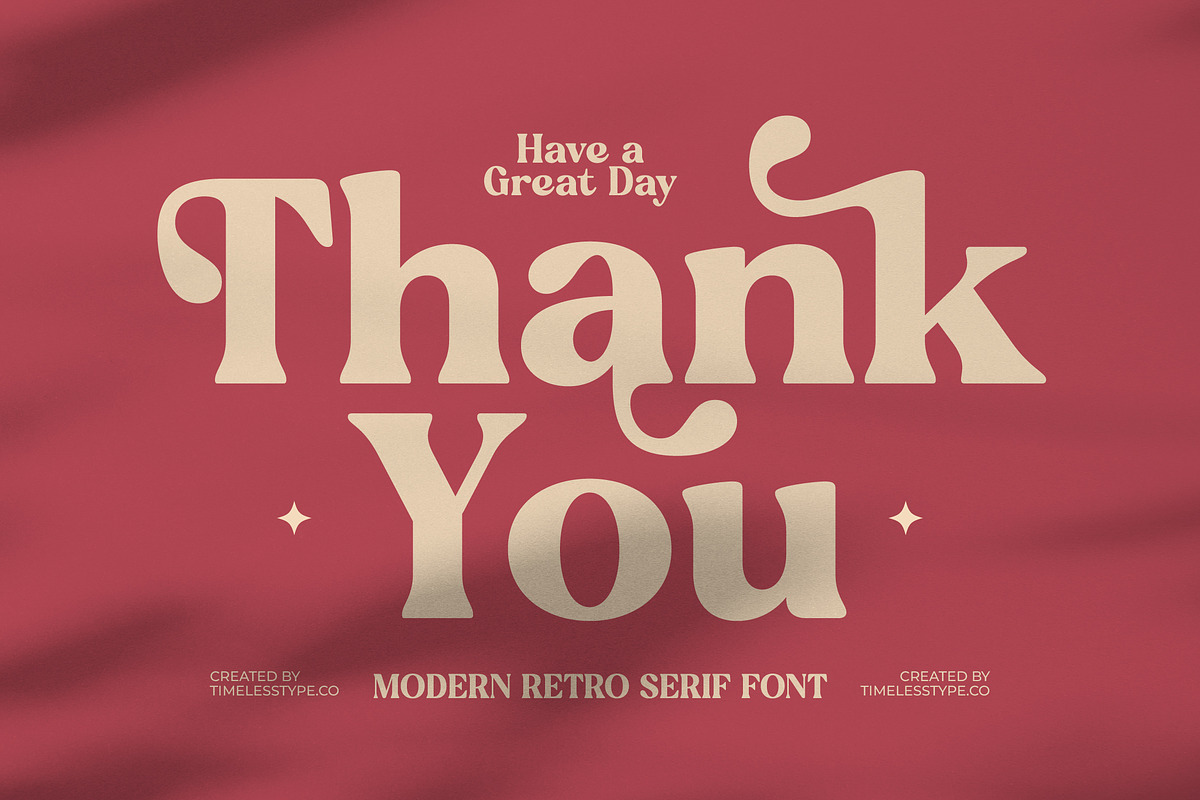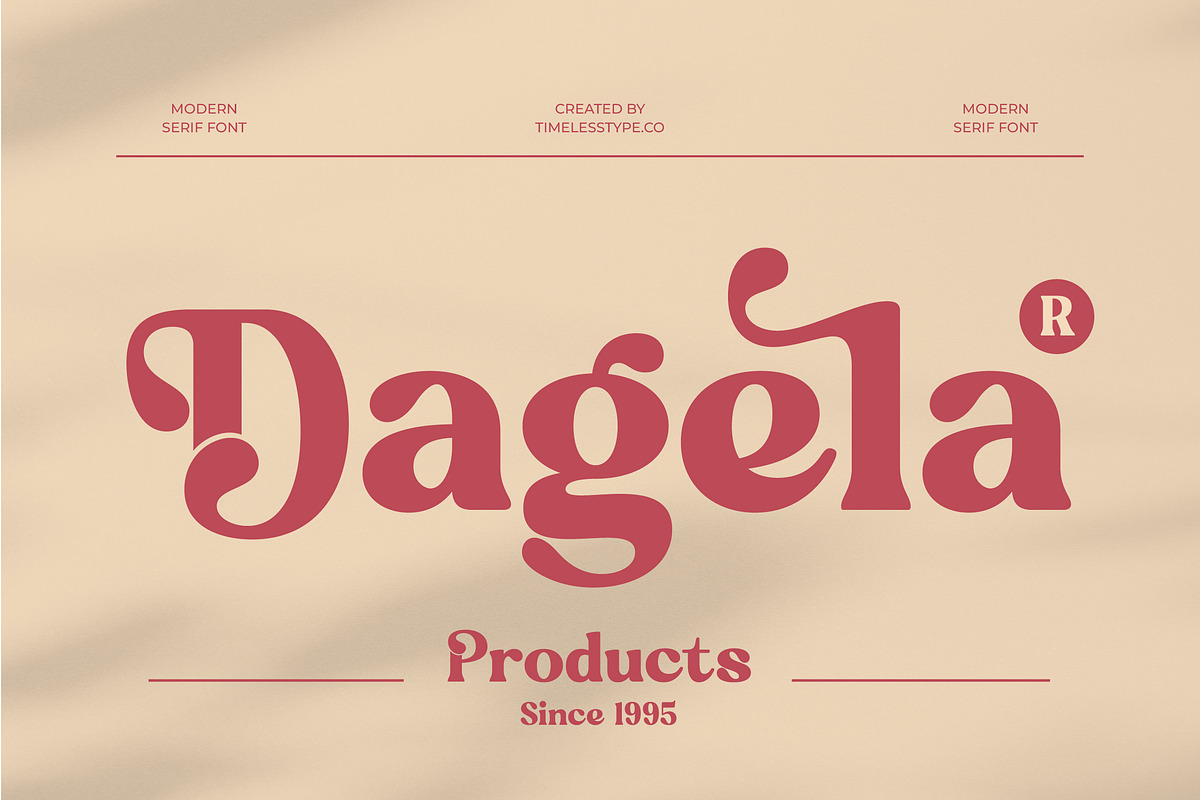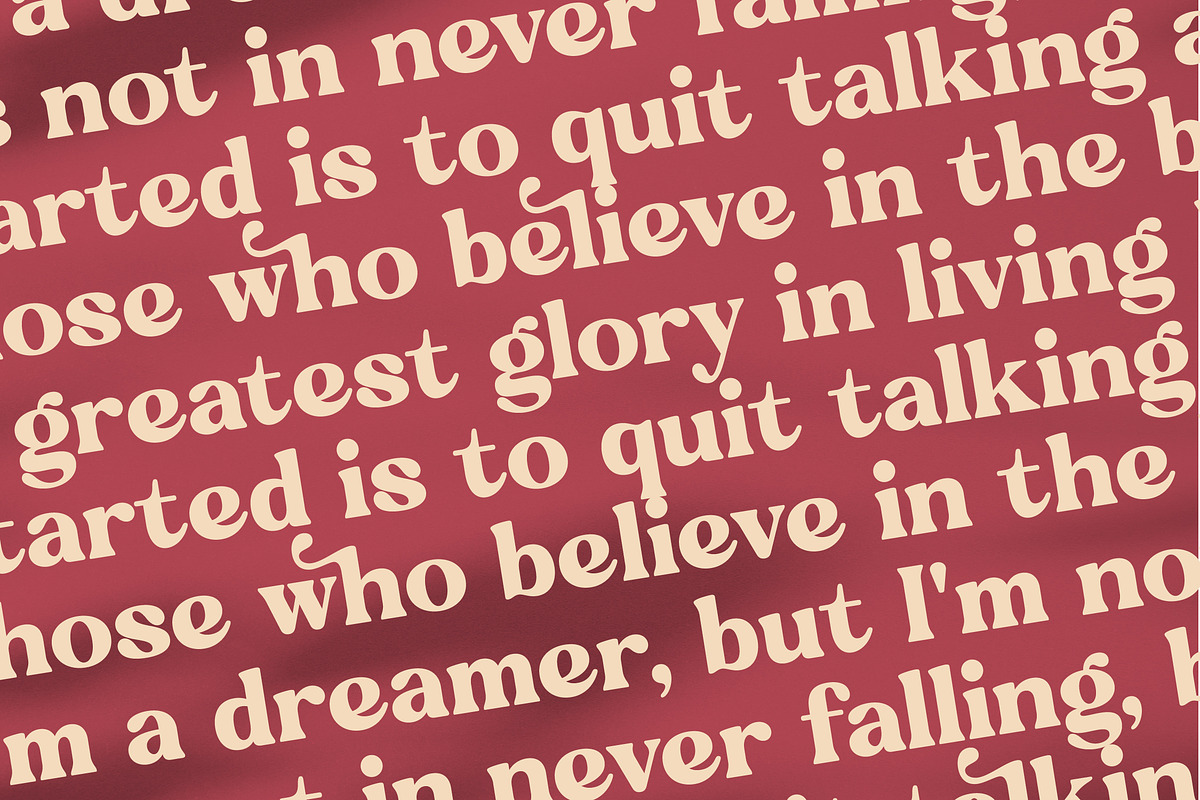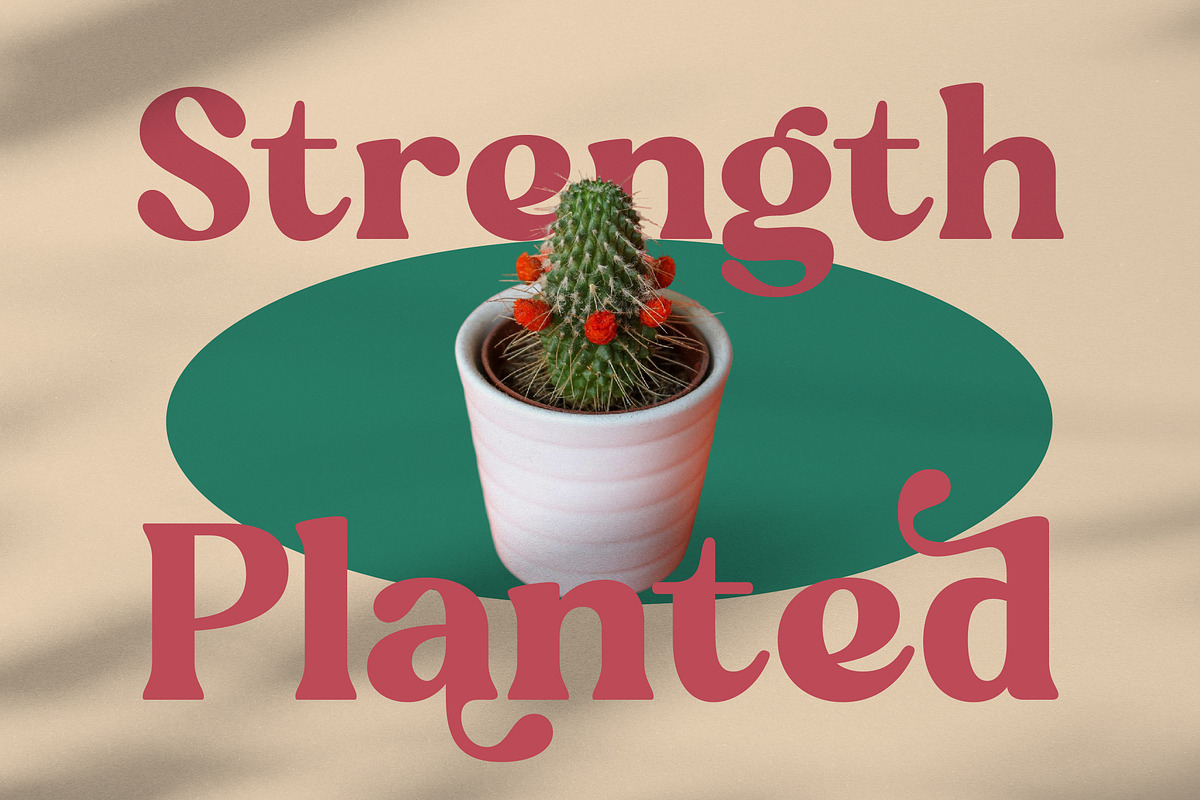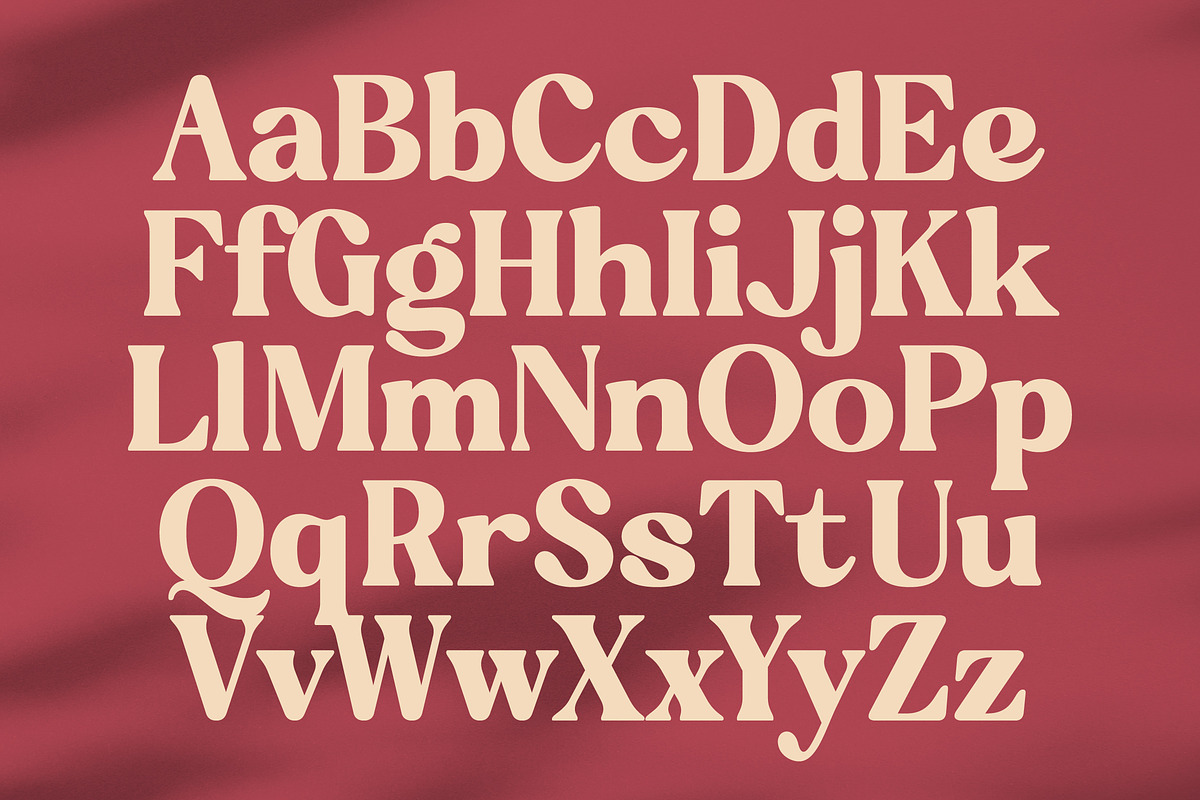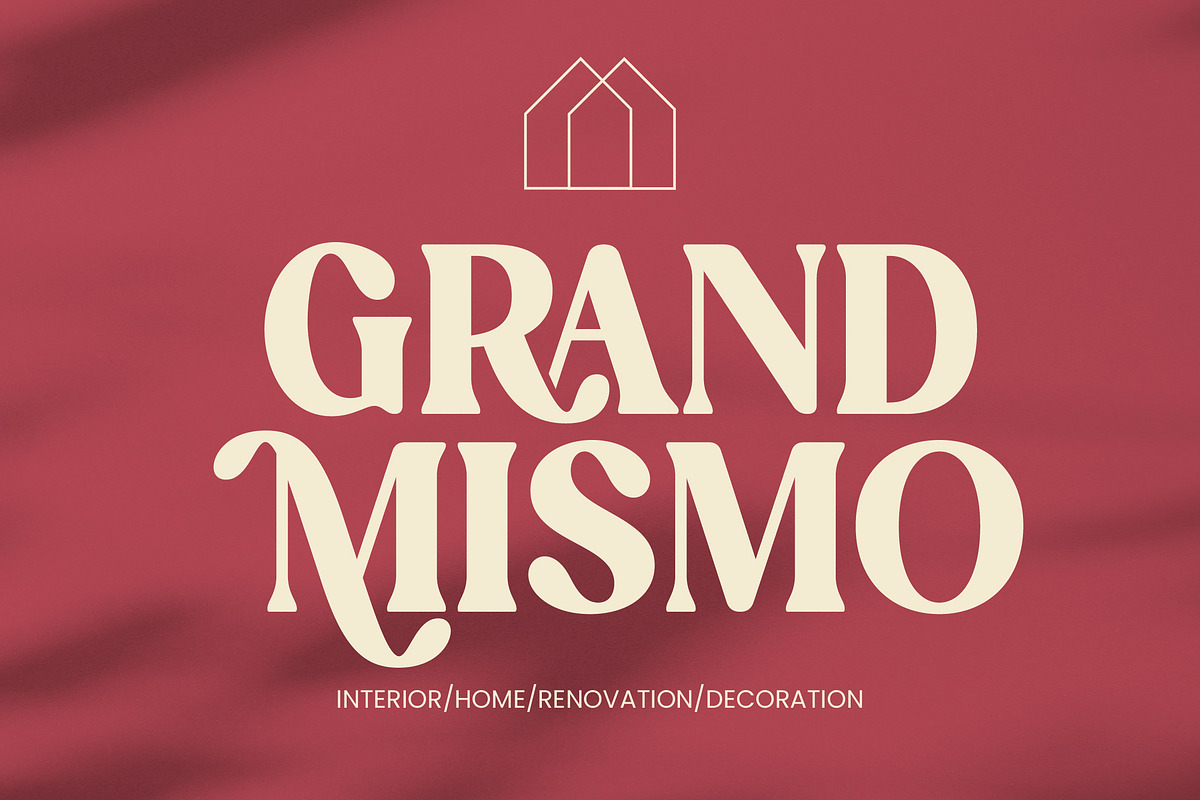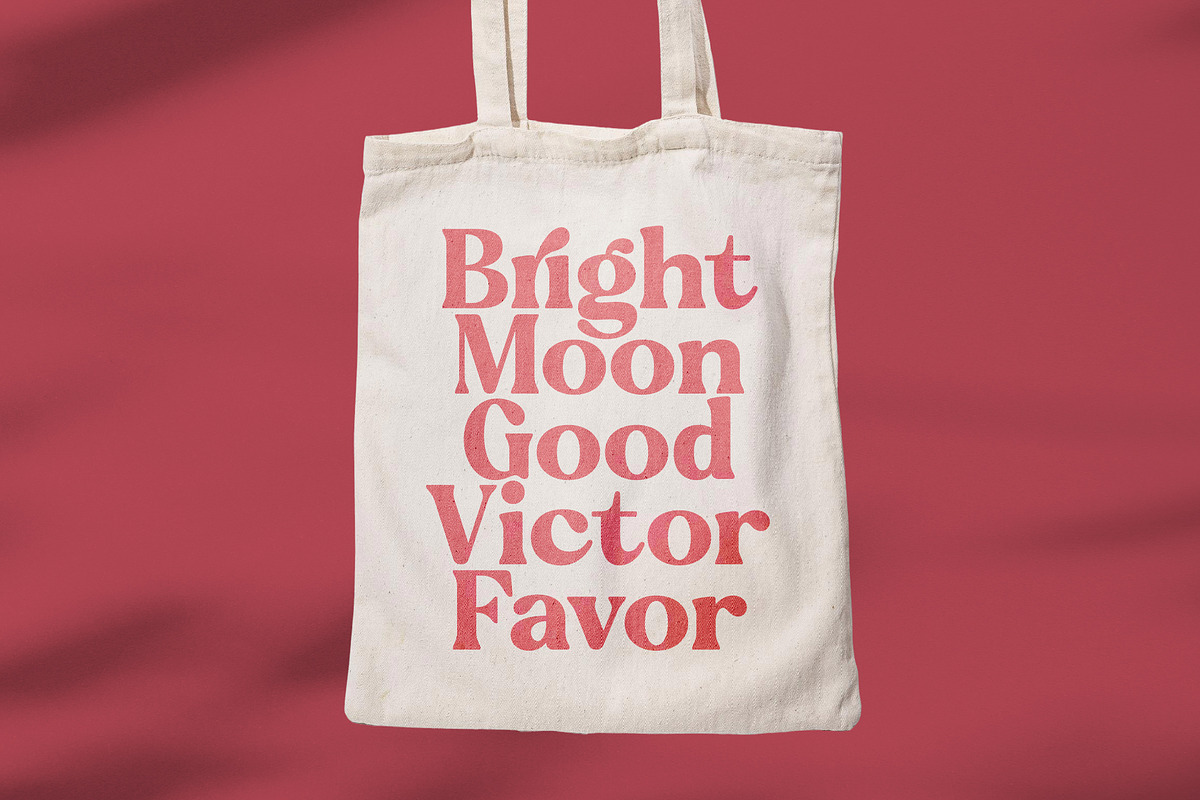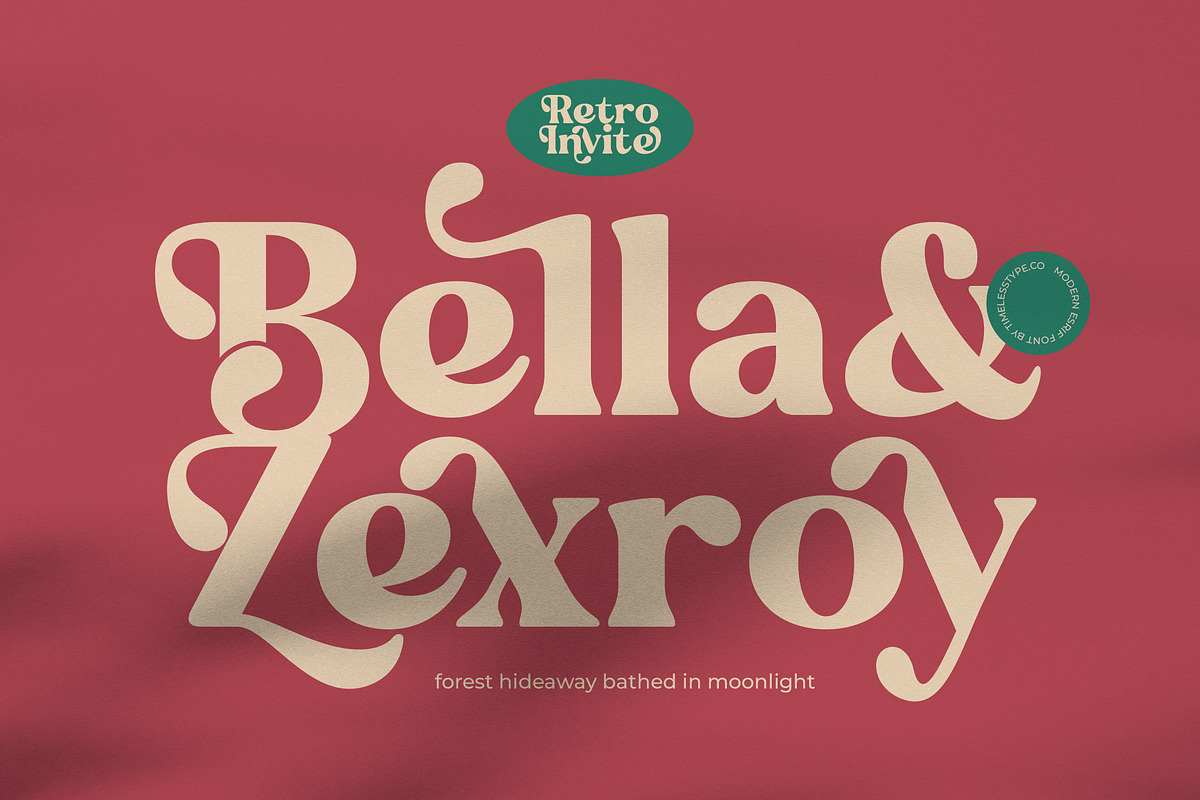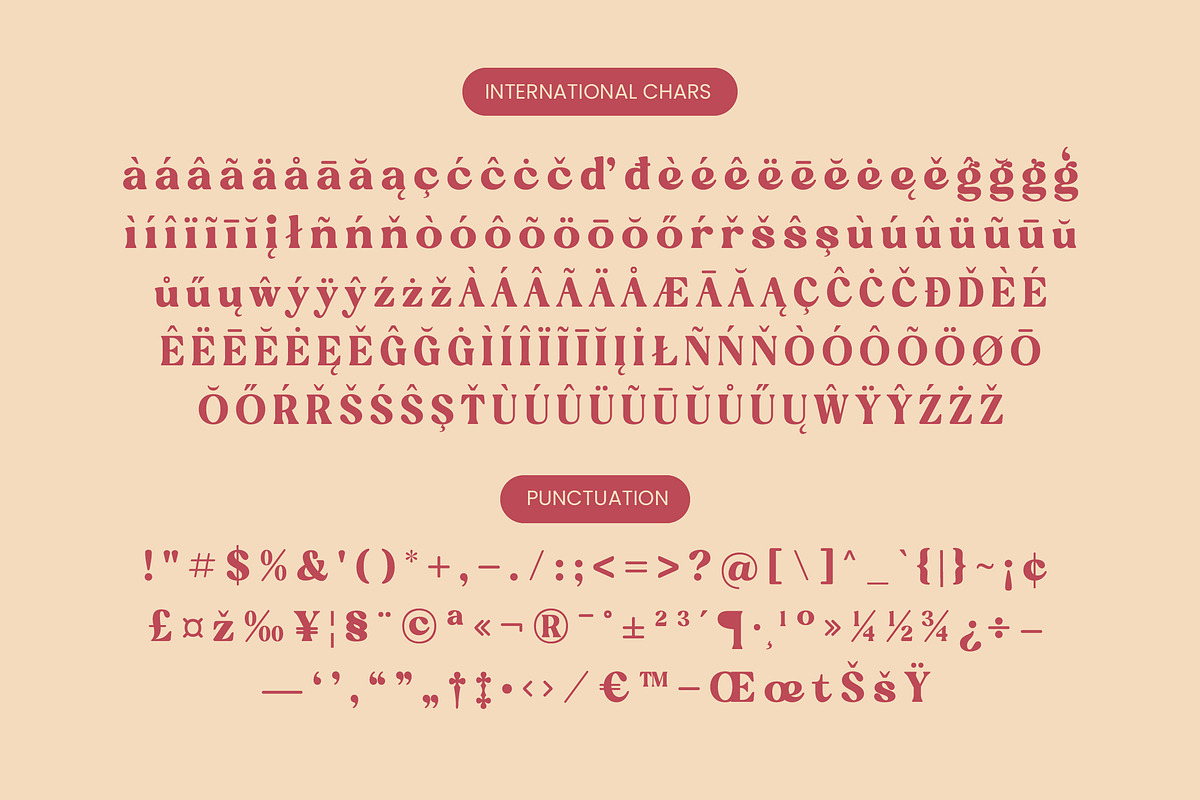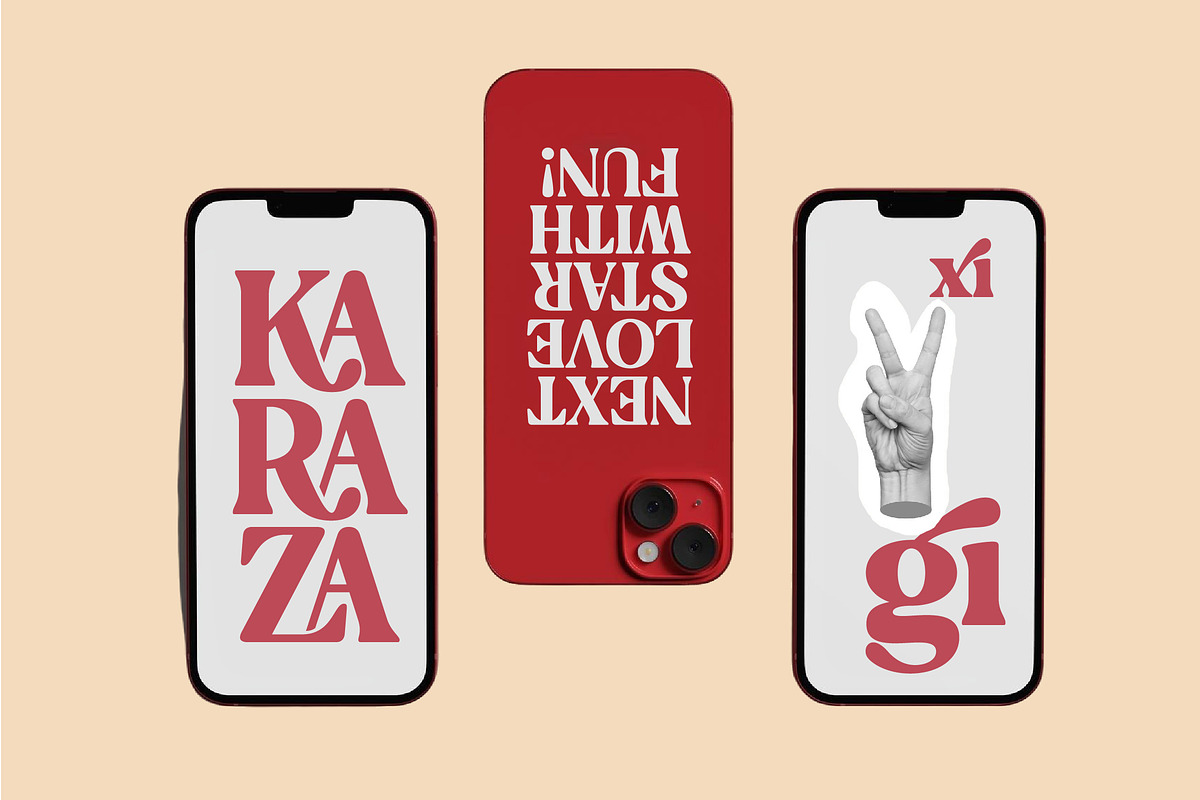
Regina Bonita Modern Retro Serif
Experience the captivating allure of Regina Bonita, a typeface designed to infuse your creative projects with an undeniable sense of timeless sophistication and grace. This font strikes a perfect balance between nostalgic charm and contemporary elegance, making it an essential addition to any designer's toolkit.
Drawing inspiration from the bold aesthetics of mid-century editorial design, this typeface channels the soulful energy of vintage magazines and classic cinema posters. Its rhythmic curves and sturdy foundations evoke a world of high-end craftsmanship and artistic heritage that resonates with modern audiences.
With its commanding presence and intricate details, this modern serif display offers a masterclass in luxury typography. The high-contrast serif forms ensure maximum visibility and branding impact, providing a sophisticated editorial font solution for those seeking to elevate their visual identity to the highest tier.
Perfectly aligned with the current modern serif trend, this typeface meets the growing demand for editorial display fonts that feel both familiar and fresh. It is the ultimate choice for creators looking for character-driven typography that breaks away from the mundane to tell a unique story through letterforms.
From high-end logo design and comprehensive branding systems to immersive editorial layouts, this font excels across diverse platforms. It is particularly well-suited for luxury packaging, romantic wedding stationery, and avant-garde fashion lookbooks where style is paramount.
This professional package includes a vast collection of ligatures and unique alternates to help you customize every word to perfection. Complete with decorative swashes and full multilingual support including international characters, it provides everything needed for global design excellence.
- Ligature 66 Alternate 21